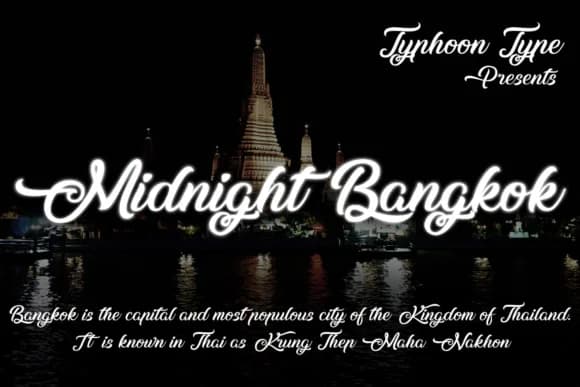
About Midnight Bangkok Font
Midnight Bangkok by Typhoon Type™ is a swashy cursive font that brings refined movement and visual sophistication to contemporary design work. With flourishing letterforms and energetic strokes, this handwritten typeface captures the fluidity of modern calligraphy while maintaining excellent readability across various applications and display scales. The distinctive character forms work equally well at large headline sizes or integrated as refined text elements, giving designers flexibility to create visual hierarchy and emphasis without sacrificing legibility or impact.
This versatile font truly excels in luxury branding projects, upscale cosmetics packaging, and special occasion invitations that demand refined visual language. Whether you're designing wedding save-the-date cards, creating premium product labels for artisanal goods, building boutique website headers, or crafting hand-lettered logo treatments, Midnight Bangkok delivers the sophisticated aesthetic that discerning clients expect. Its flowing letterforms also work beautifully for personal brand identity systems, editorial greeting card collections, and event announcements where distinctive character and refined aesthetics matter most.
Midnight Bangkok Font is a script font that shines as a display or heading face. Pair it with a clean sans-serif or serif font for body text — the contrast creates a clear hierarchy while the two styles stay balanced and easy to read.